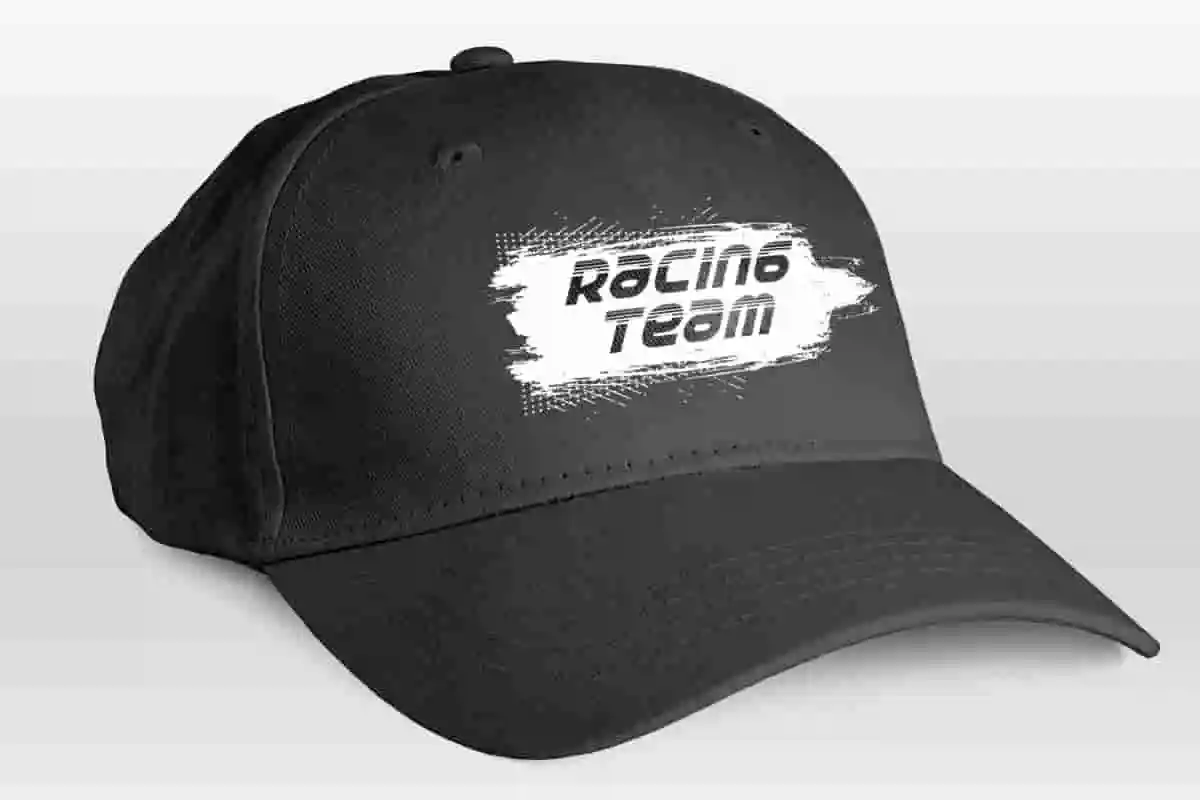
Race Stripe Font is a racing sport with unique lines display font, created by NoahType. This font has a bold appearance with tire marks at the top of the letters that are still easy to read. This font will be suitable for a lot of projects, such as business card, catalog, cover, custom design, label, poster, quote, web, and more!
Race Stripe Font includes full set of Uppercase and Lowercase Basic Characters, Numerals and Punctuation. This font has an attractive appearance that will make you believe it is the perfect choice for many industries, such as advertisement, café, event organizer, fashion, printing, publishing, racing, sports stuff, etc.